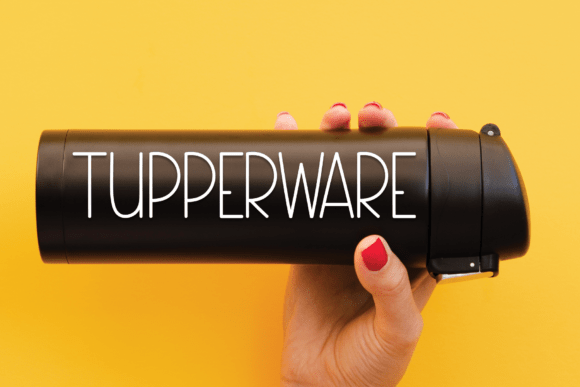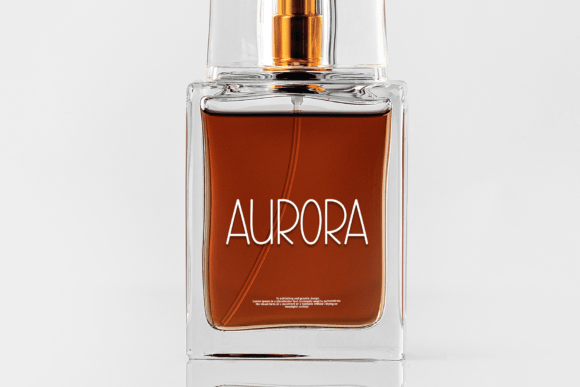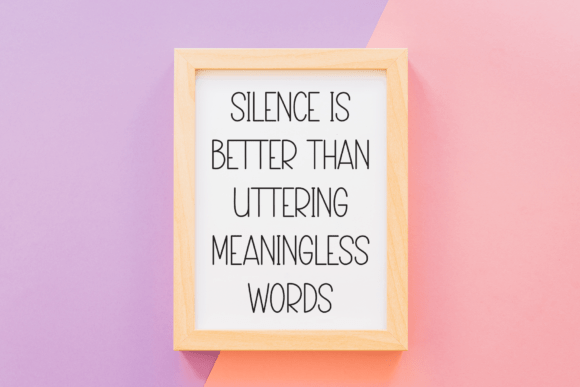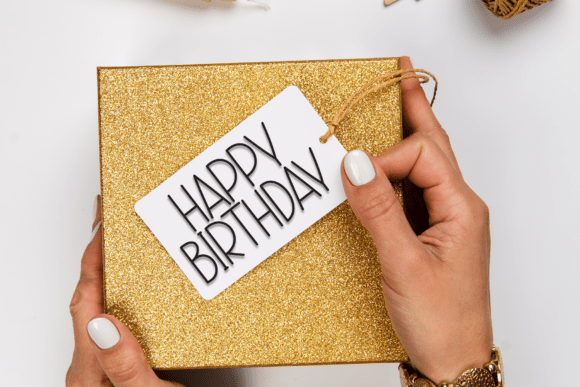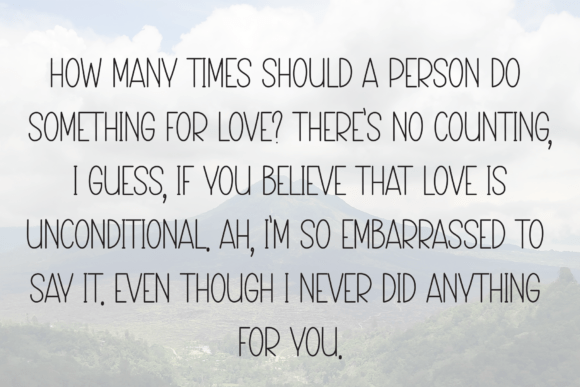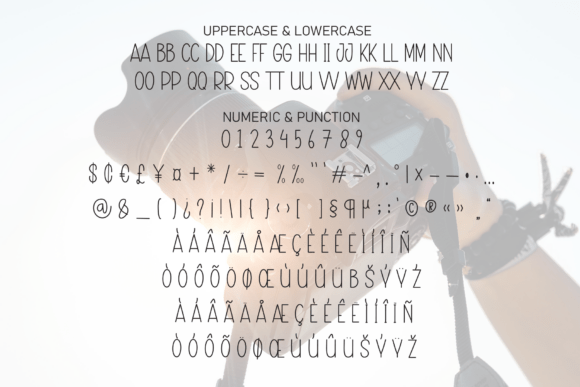
Introduction to Saturday Photography Font
This handwritten display font brings charm and character to every letter.
With its playful strokes and casual flow, it captures the essence of authentic handwritingโperfect for quotes, greeting cards, branding, and anything that needs a personal, heartfelt touch Whether you’re crafting for kids or designing a modern logo, this font adds warmth and whimsy to your work.
Key Features of Saturday Photography Font
Why Choose Saturday Photography Font?